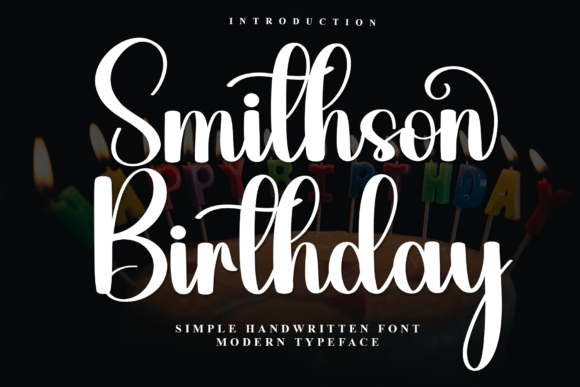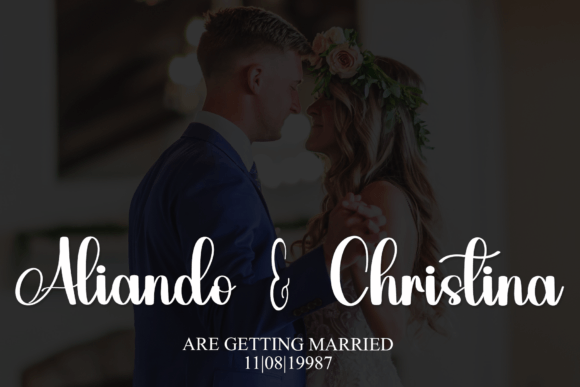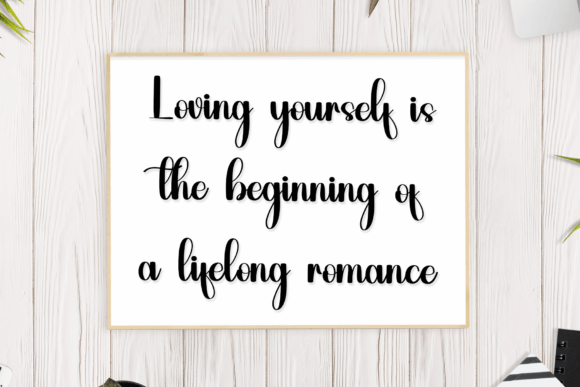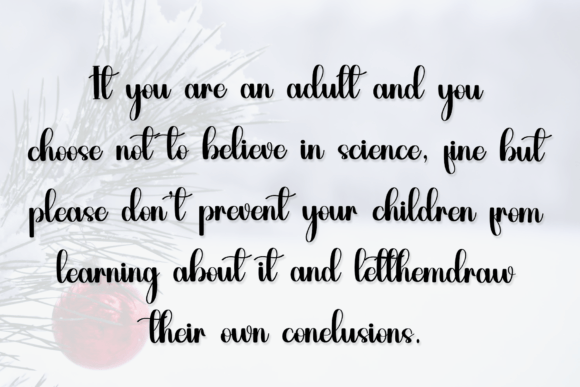
Smithson Birthday Font: A Cute Handwritten Font for Invitations & Cards
About the Smithson Birthday Font
Add a touch of class to your work with the Smithson Birthday Font, a truly exceptional typeface. Smithson Birthday is a charming handwritten font that exudes warmth and personality. With its playful yet legible style, this font adds a touch of whimsy to any project. Perfect for greeting cards, invitations, and branding, this font captures the essence of handmade authenticity with its natural strokes and irregularities.